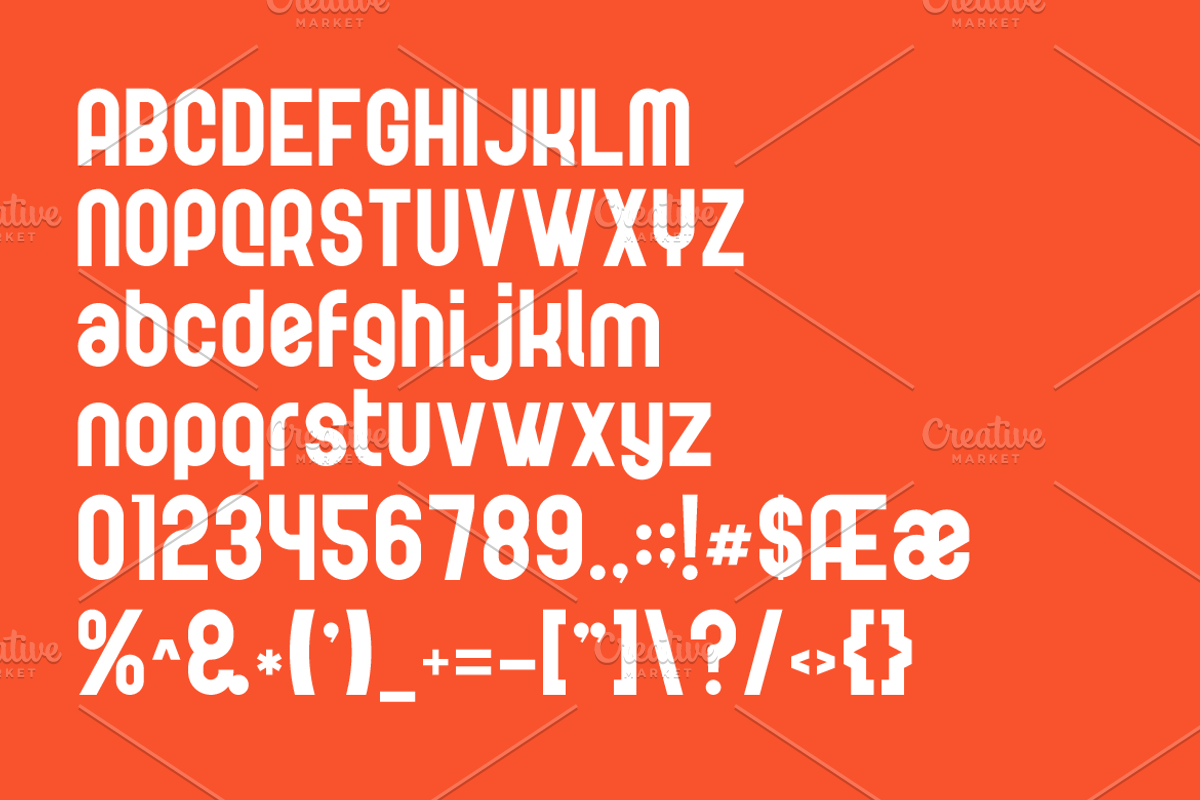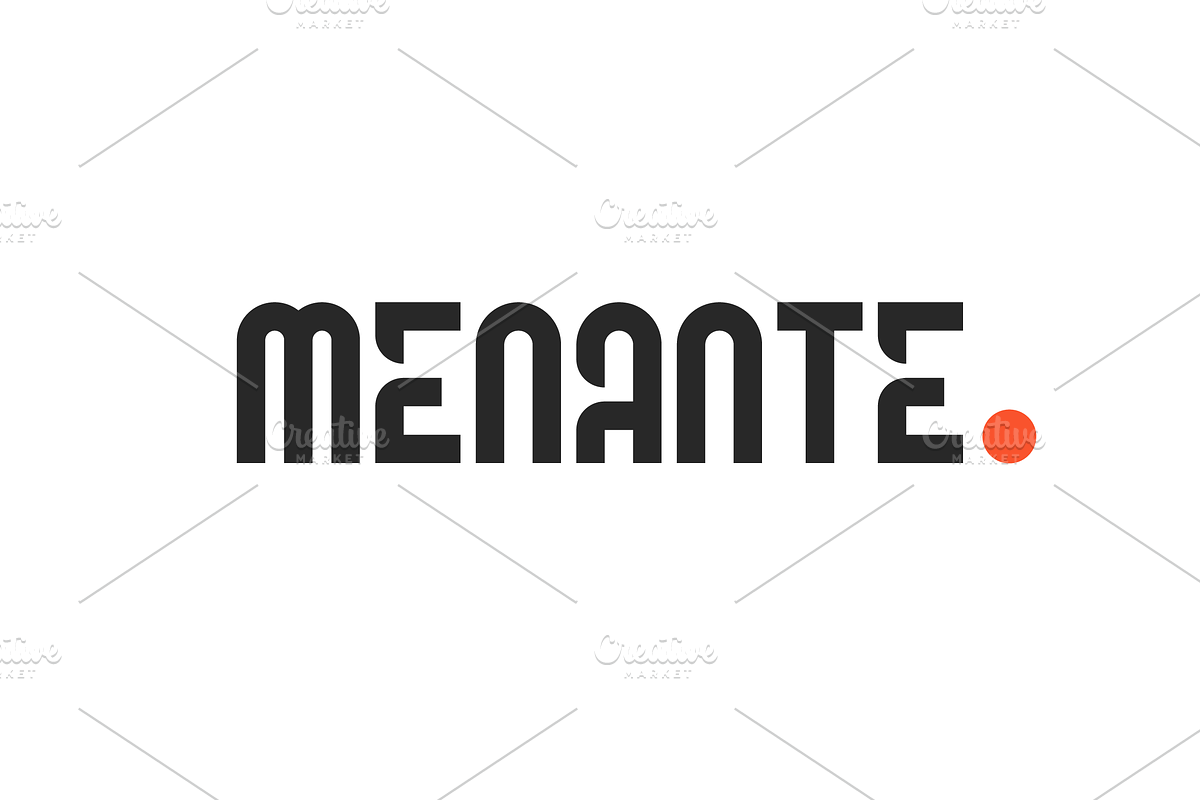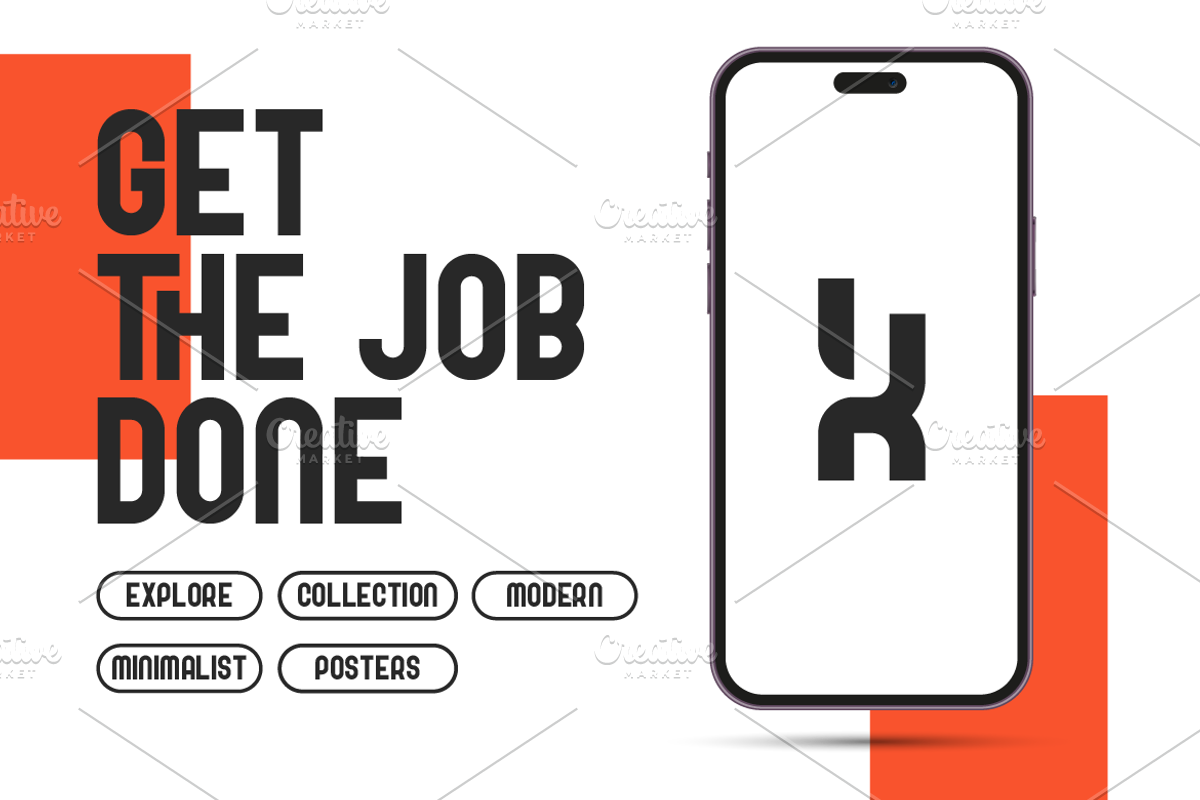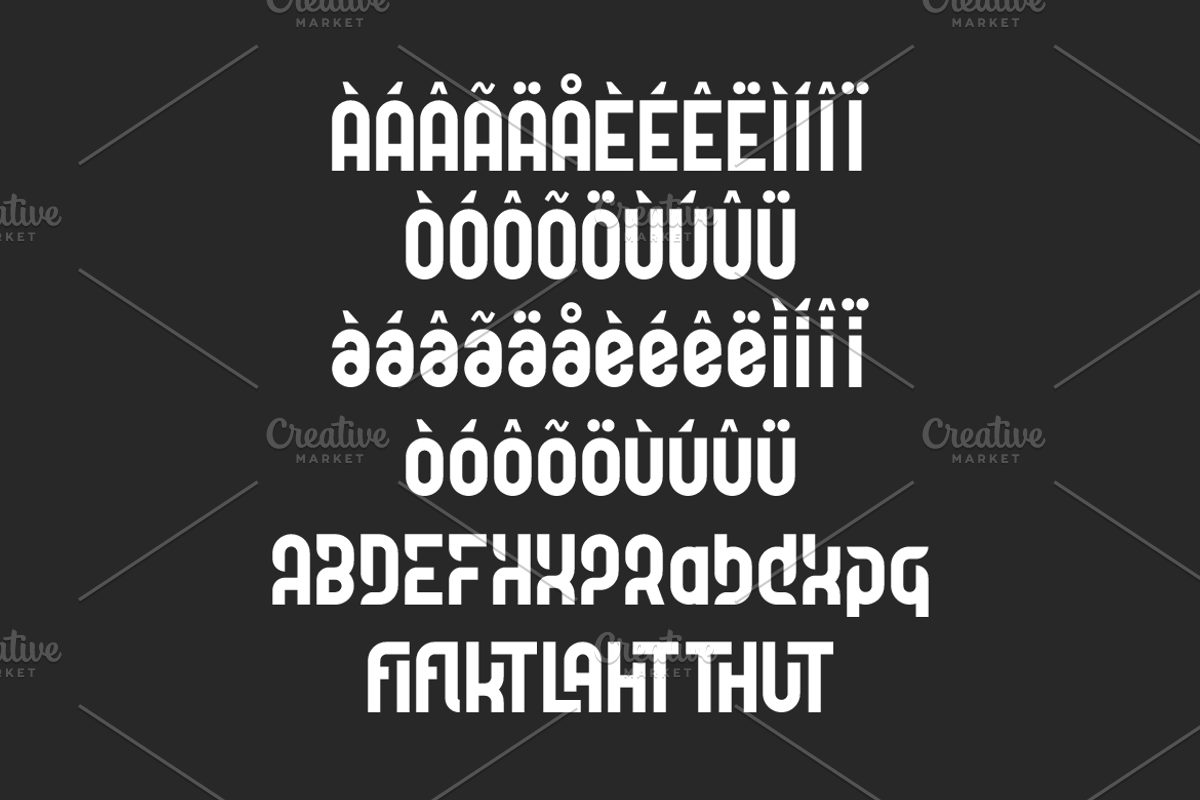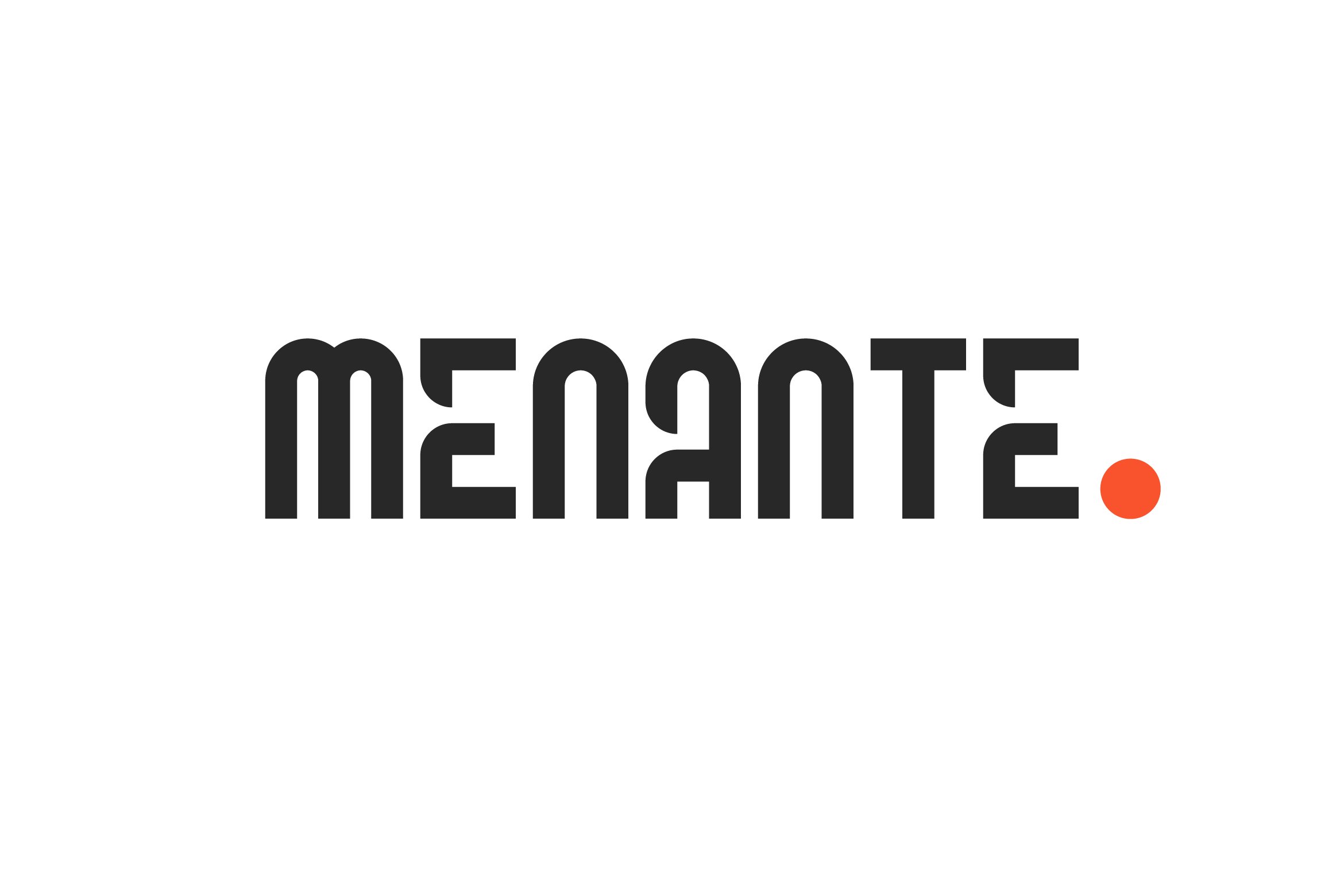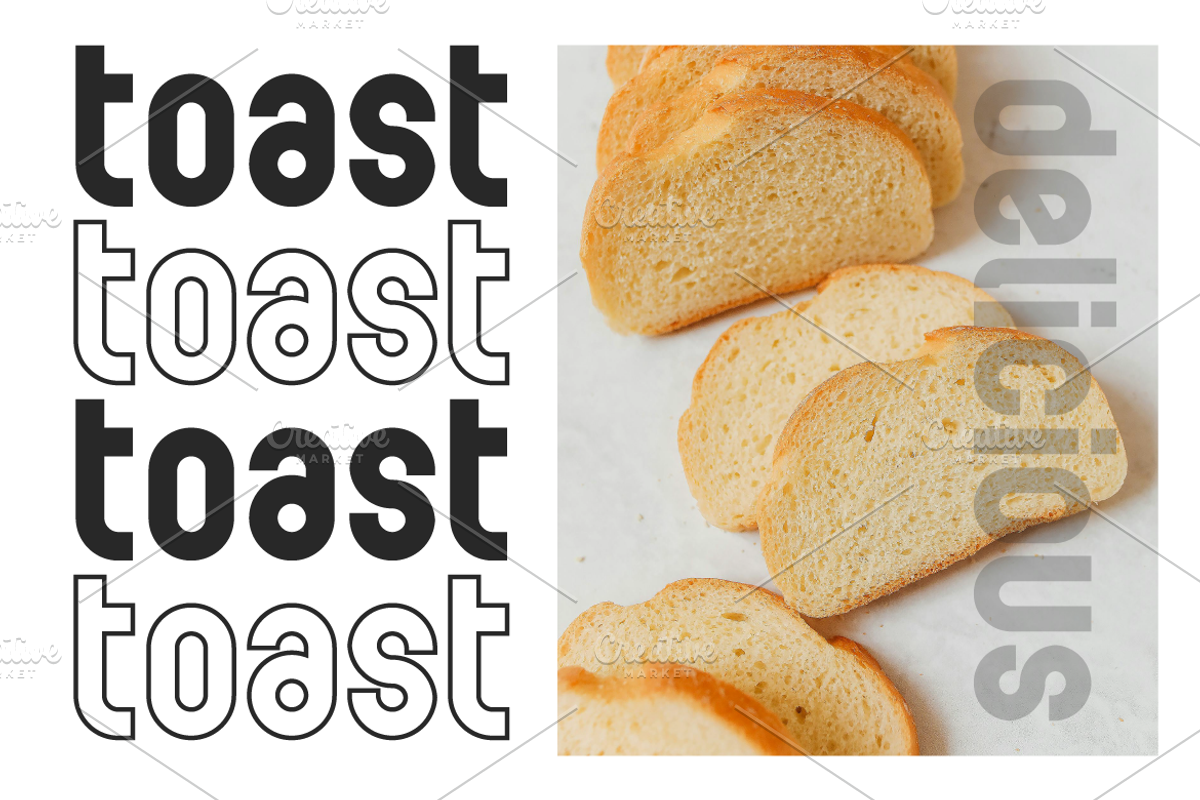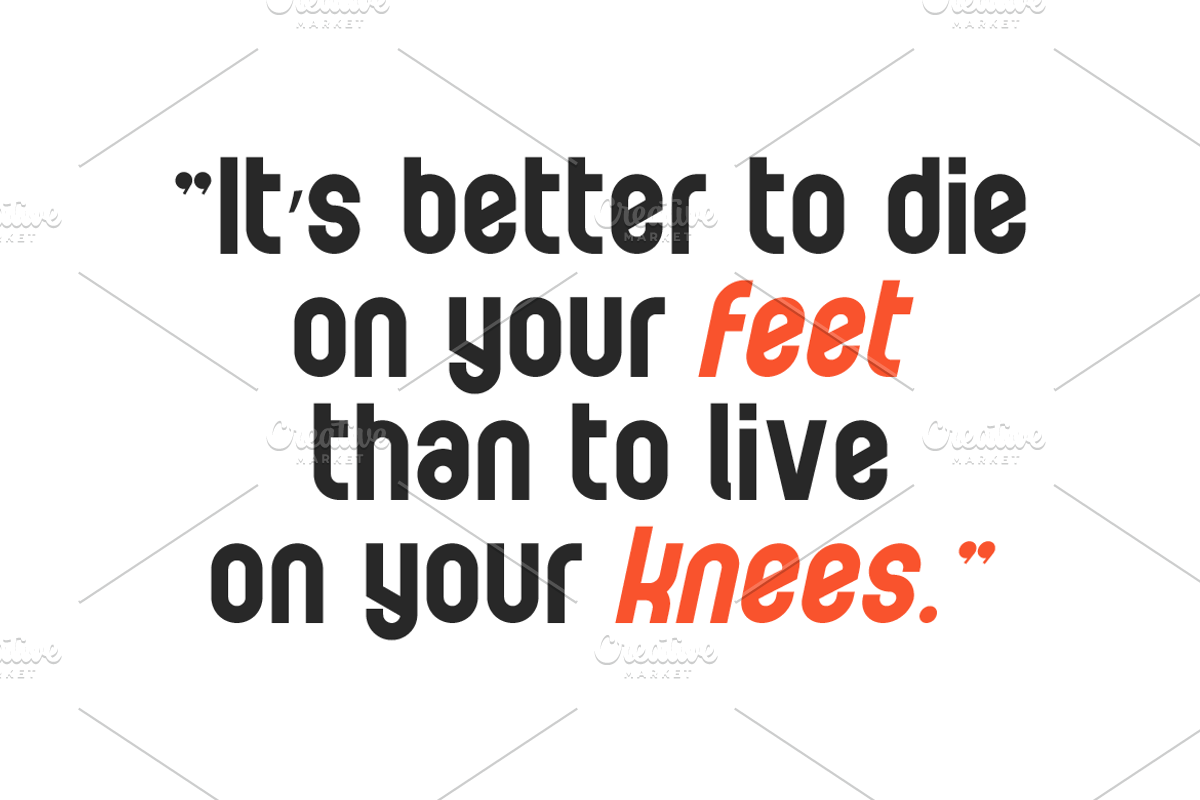
Menante Modern Sans Font
Menante is a distinctive geometric sans serif font crafted by Iwan Alwan. It stands out with its unique shapes and versatile design, offering variations in uppercase and lowercase letters. With multilingual support, ligatures, and alternates, Menante is perfect for creating eye-catching, modern designs that require a touch of originality and flexibility. Whether for branding, headlines, or creative projects, Menante delivers a fresh and dynamic feel.